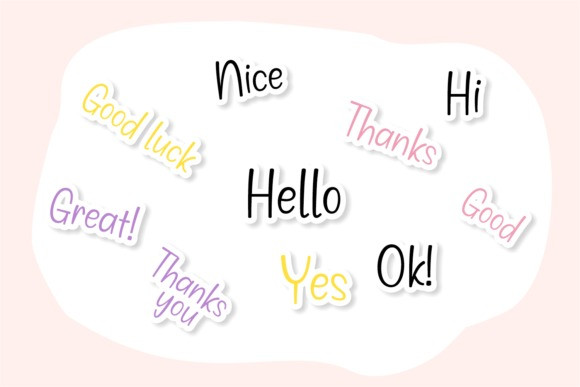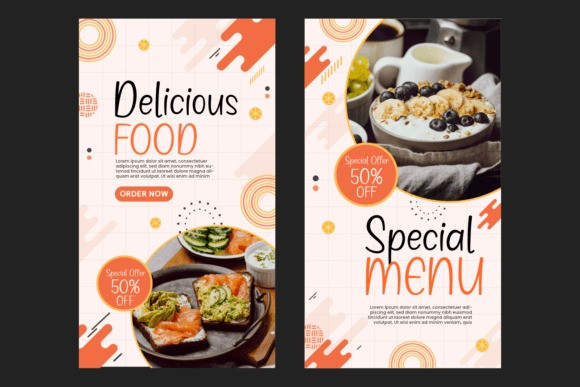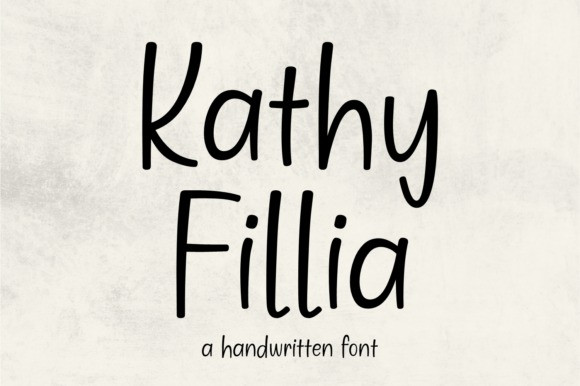
Kathy Fillia Font
Kathy Fillia Font is a modern, simple, and easy-to-spot font. Whether you are using it for crafts, magazines, quotes, titles, brand names, book covers, posters, or just any creation that requires a touch of authenticity, this font is a great choice.